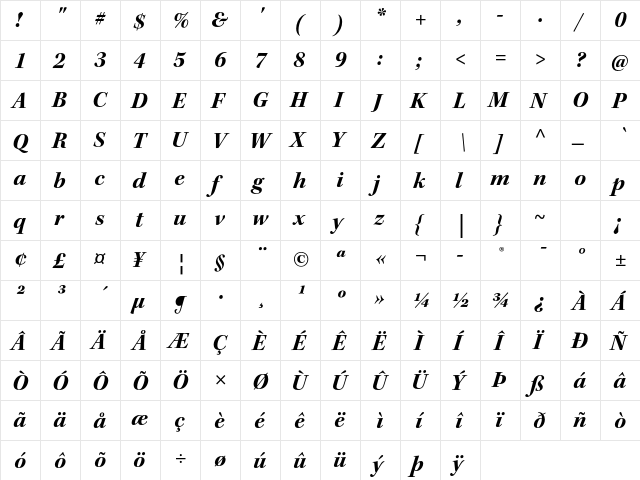
Kepler Std Bold Italic Subhead
| Designer | Robert Slimbach |
Design Context for Kepler Std Typeface
Kepler Std is a composed and adaptable typeface that performs quietly and consistently across a wide range of design contexts. Its italic angle brings a sense of urgency and motion to the letterforms. The heavy weight commands attention and anchors typographic hierarchies.
Pro Tip: Use Kepler Std for emphasis, pull quotes, and subheadings where its slanted energy can add rhythm to the layout.